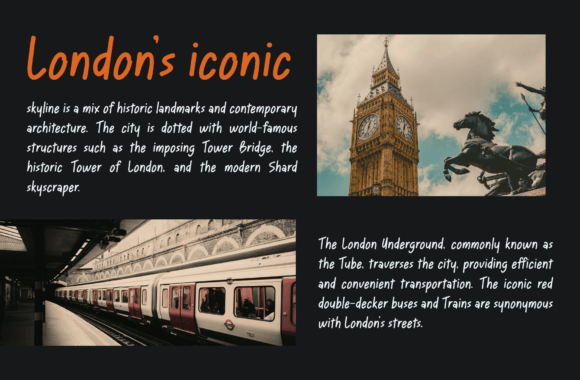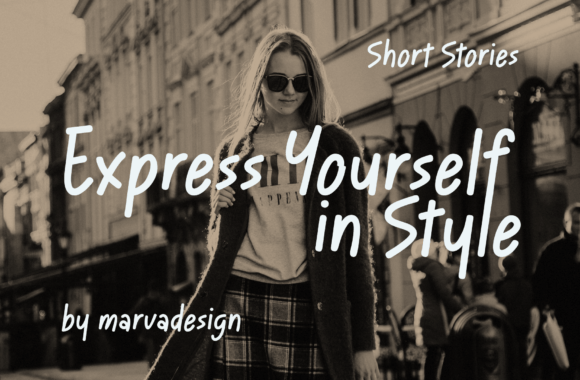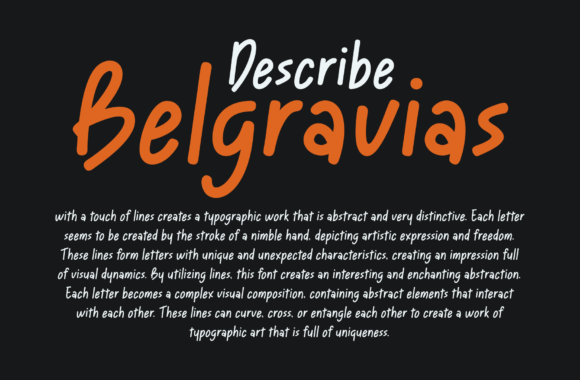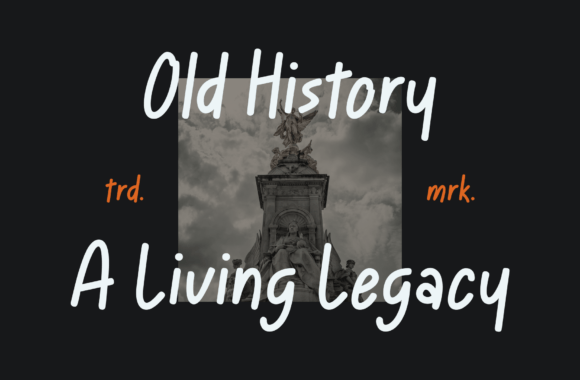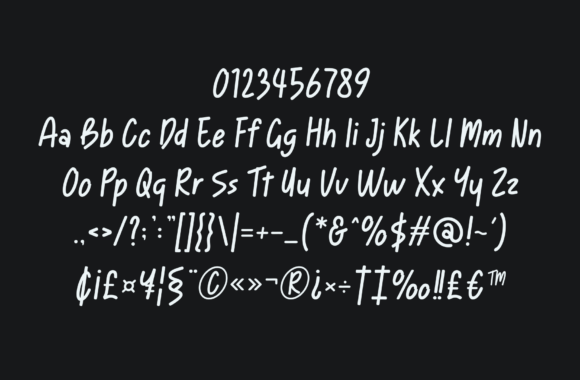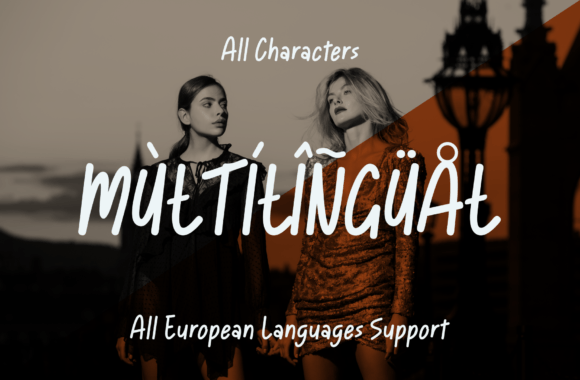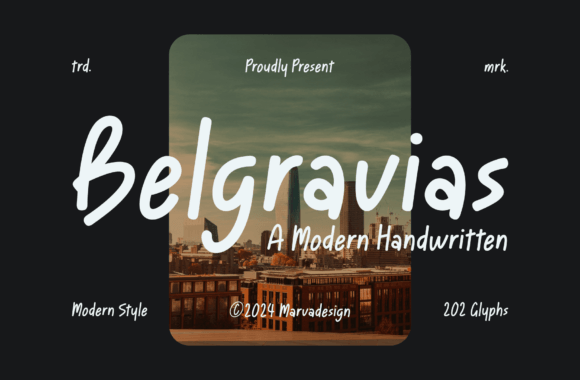
Introducing Belgravias Font: A Modern Handwritten Font with a Touch of Lines
In the world of typography, fonts play a crucial role in conveying messages, expressing emotions, and creating visual identities. For designers, crafters, and typography enthusiasts, finding the perfect font can be a daunting task. That’s why we’re excited to introduce Belgravias Font, a modern handwritten font that adds a touch of lines to create a unique and distinctive typographic work.
The Art of Belgravias Font
Belgravias Font is a masterpiece of modern typography, where each letter seems to be created by the stroke of a nimble hand. This handwritten font depicts artistic expression and freedom, making it perfect for designers who want to add a personal touch to their work. The lines that form the letters have unique and unexpected characteristics, creating an impression full of visual dynamics.
What Makes Belgravias Font Special?
So, what sets Belgravias Font apart from other fonts? The answer lies in its innovative use of lines. By utilizing lines, this font creates an interesting and enchanting abstraction. Each letter becomes a complex visual composition, containing abstract elements that interact with each other. These lines can curve, cross, or entangle each other to create a work of typographic art that is full of uniqueness.
Features of Belgravias Font
• Modern Handwritten Style: Belgravias Font boasts a modern handwritten style that is perfect for a wide range of design projects, from branding and advertising to packaging and digital media.
• Unique Line Work: The font’s innovative use of lines creates a distinctive and eye-catching effect that will make your designs stand out.
• Artistic Expression: Belgravias Font is perfect for designers who want to add a personal touch to their work and convey artistic expression.
• Highly Versatile: This font is suitable for a wide range of design projects, from elegant and sophisticated to bold and playful.
Why Choose Belgravias Font?
With so many fonts available, why choose Belgravias Font? Here are just a few reasons:
• Stand Out from the Crowd: Belgravias Font is a unique and distinctive font that will help your designs stand out from the crowd.
• Easy to Read: Despite its artistic and abstract nature, Belgravias Font is highly legible and easy to read.
• Perfect for Branding: This font is perfect for creating a strong brand identity that reflects your values and personality.
How to Use Belgravias Font
Belgravias Font is a versatile font that can be used for a wide range of design projects. Here are just a few ideas:
• Branding and Advertising: Use Belgravias Font to create eye-catching logos, advertisements, and marketing materials.
• Packaging Design: Add a touch of elegance and sophistication to your packaging designs with Belgravias Font.
• Digital Media: Use this font to create engaging and interactive digital media, such as website headers, social media graphics, and more.
In conclusion, Belgravias Font is a modern handwritten font that adds a touch of lines to create a unique and distinctive typographic work. With its innovative use of lines, artistic expression, and high versatility, this font is perfect for designers, crafters, and typography enthusiasts who want to add a personal touch to their work. Whether you’re looking to create a strong brand identity, add some elegance to your packaging designs, or simply want to experiment with a new font, Belgravias Font is the perfect choice.